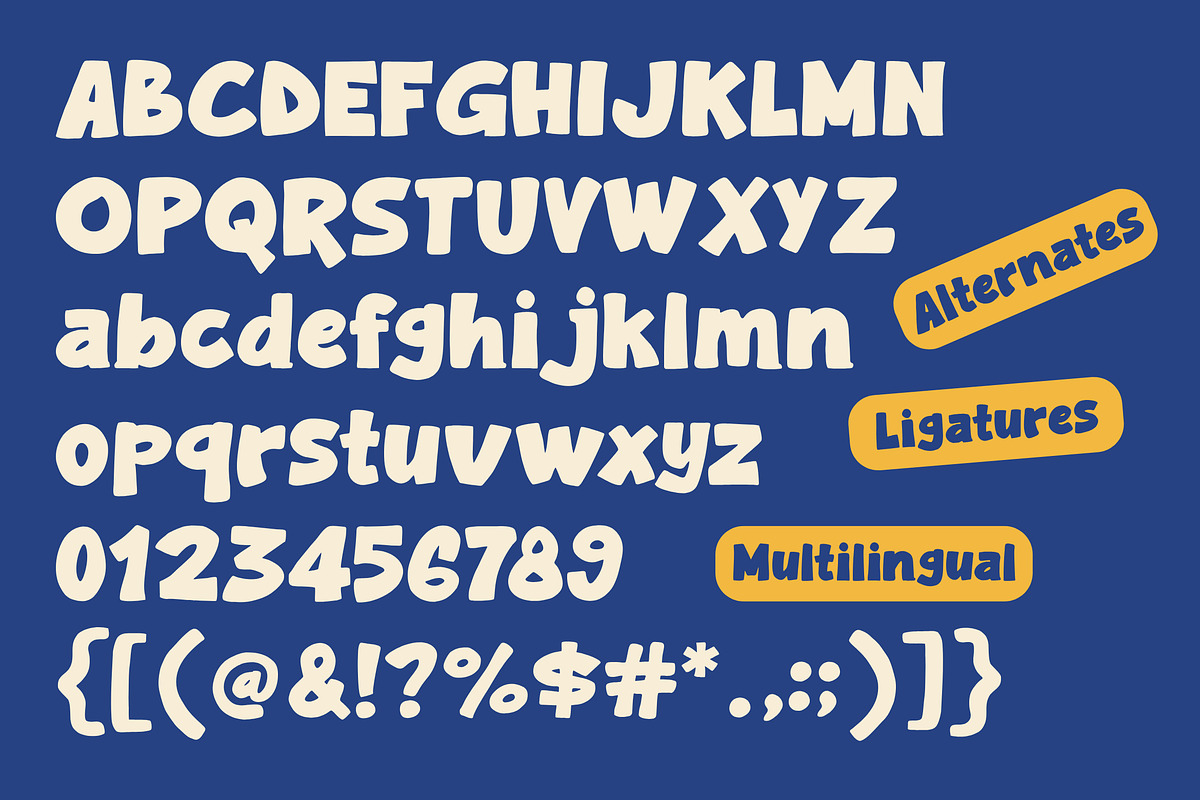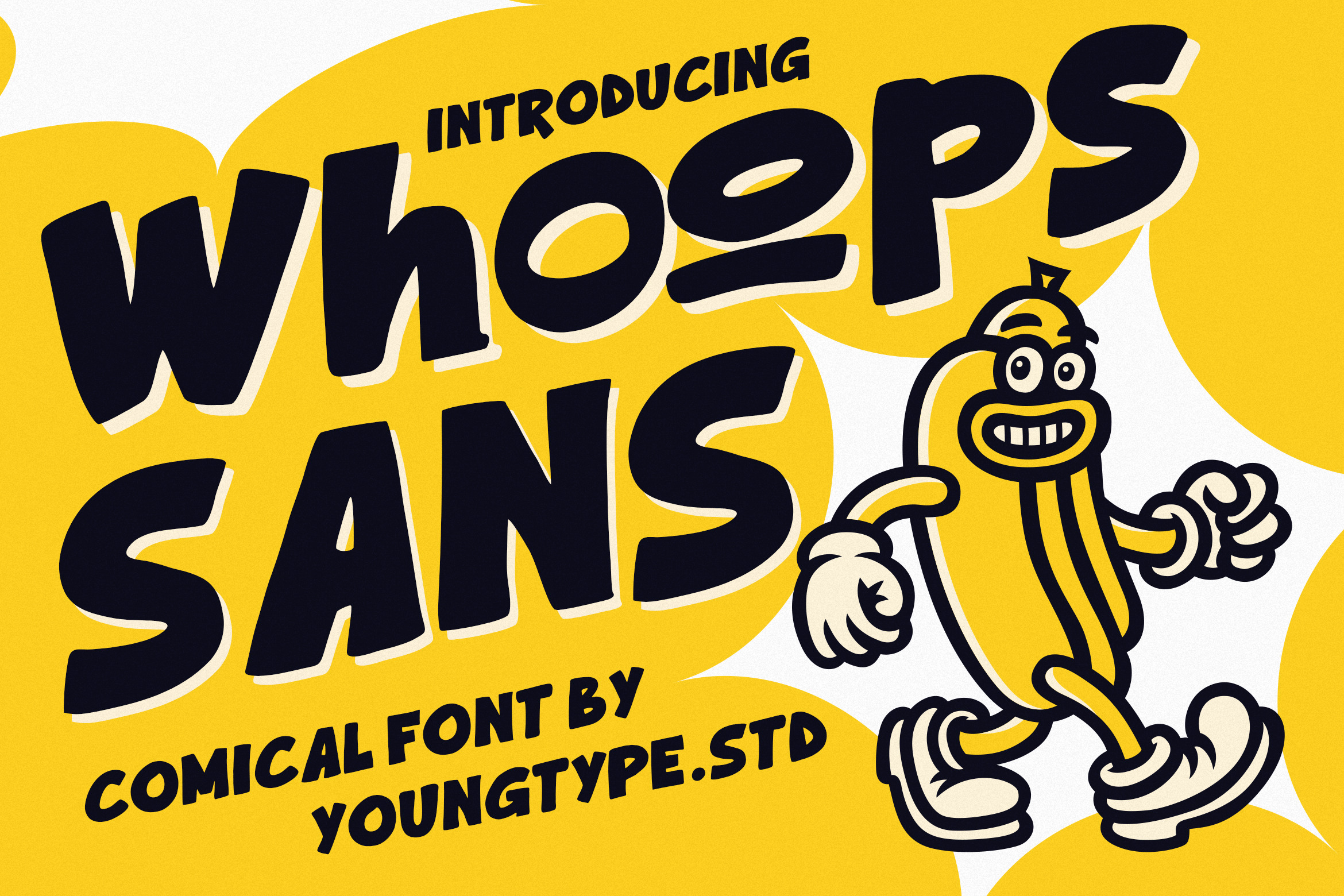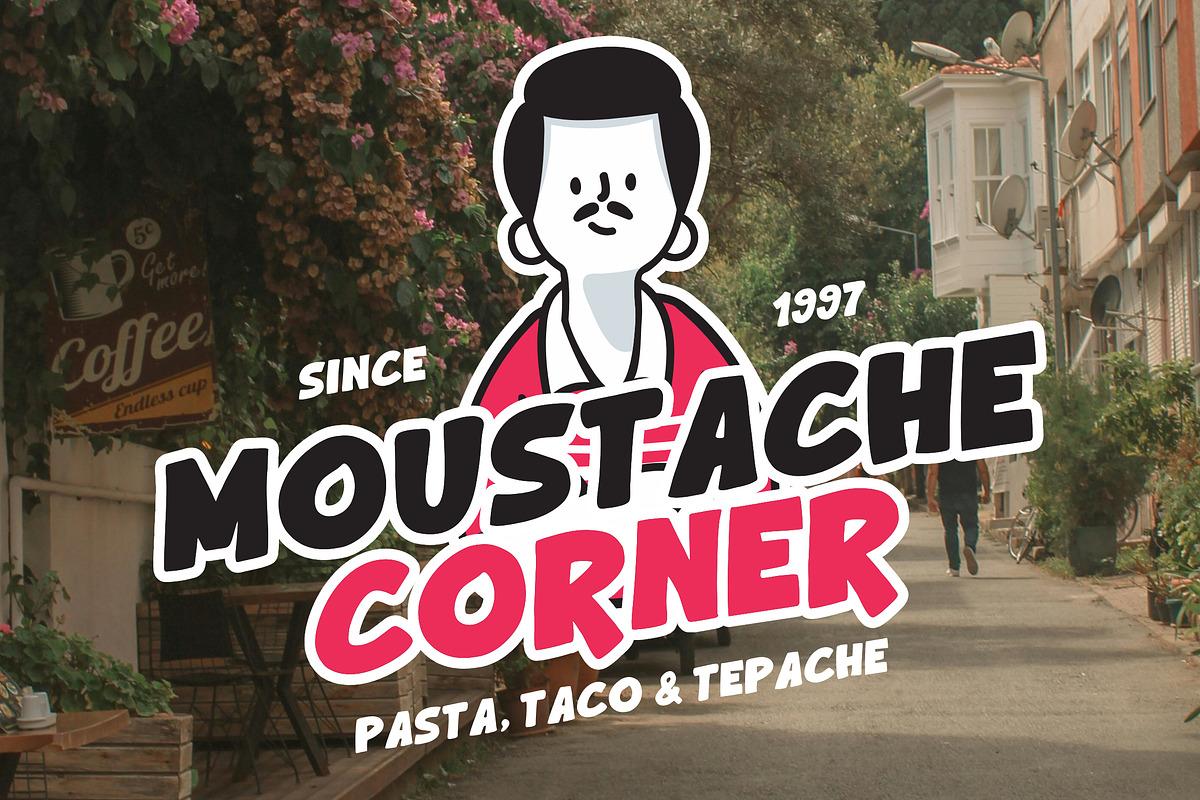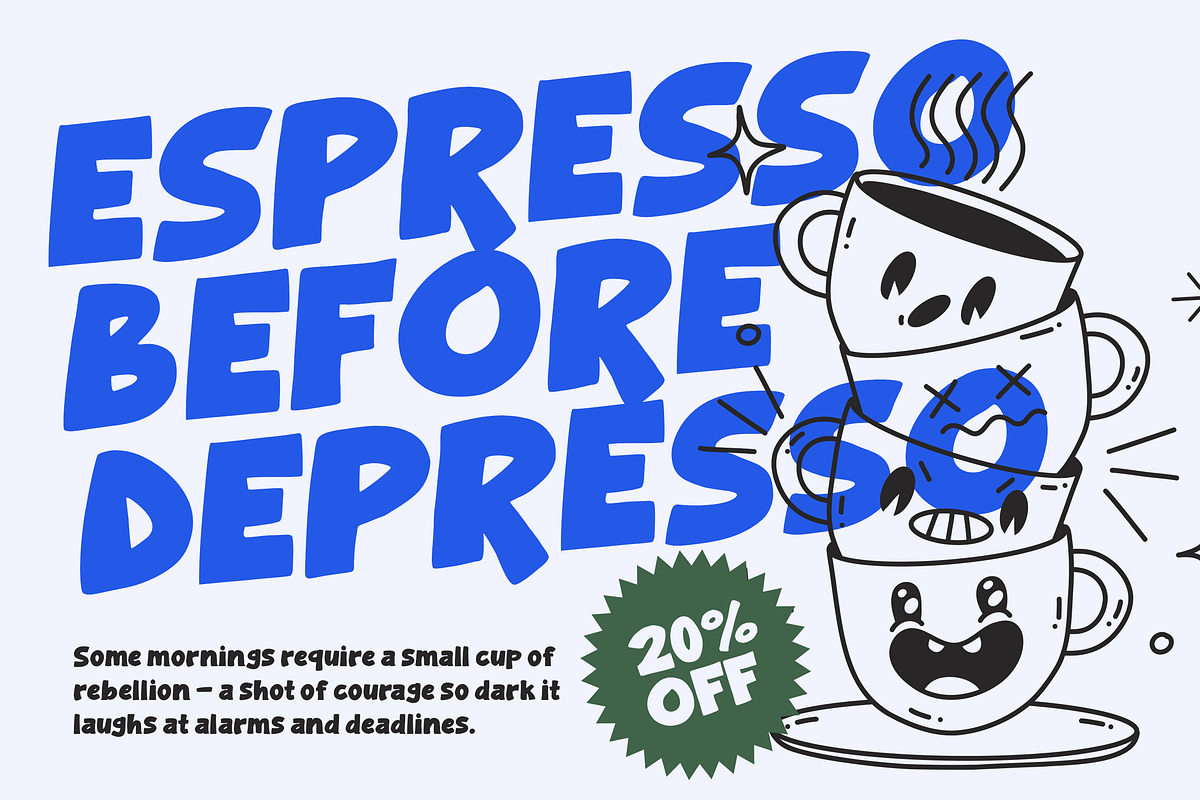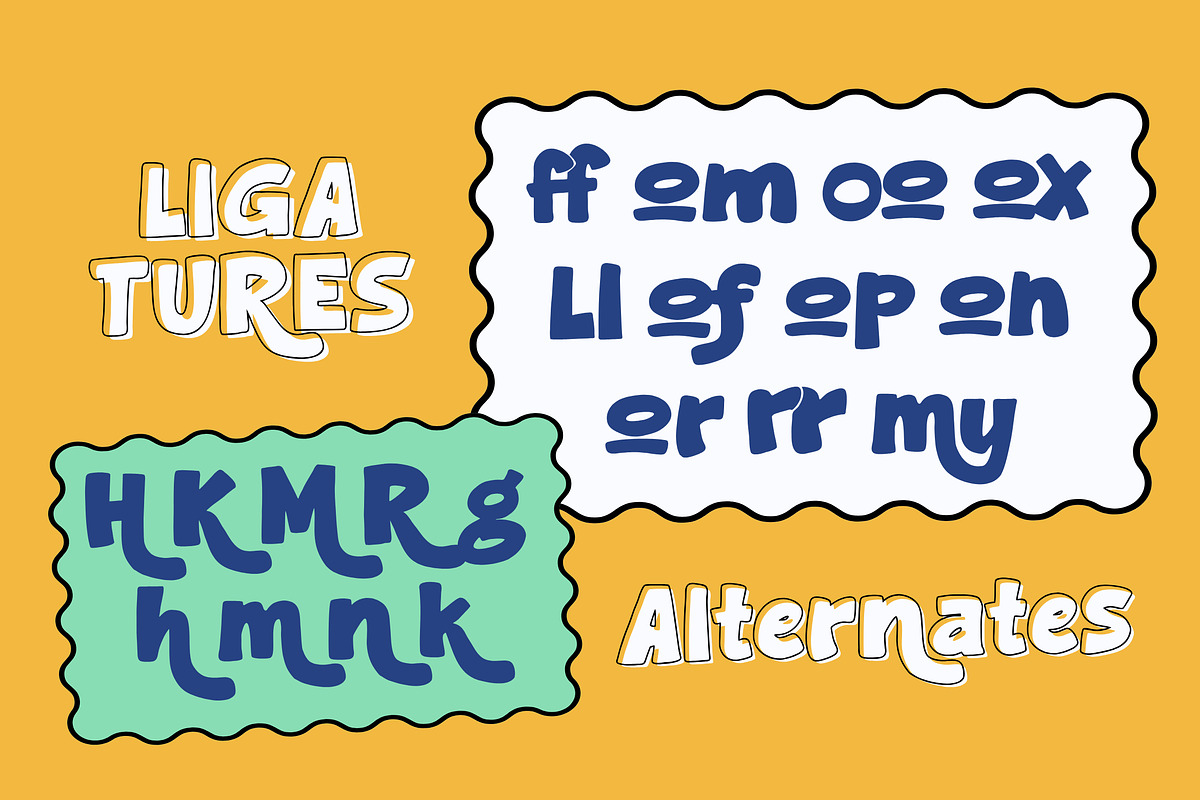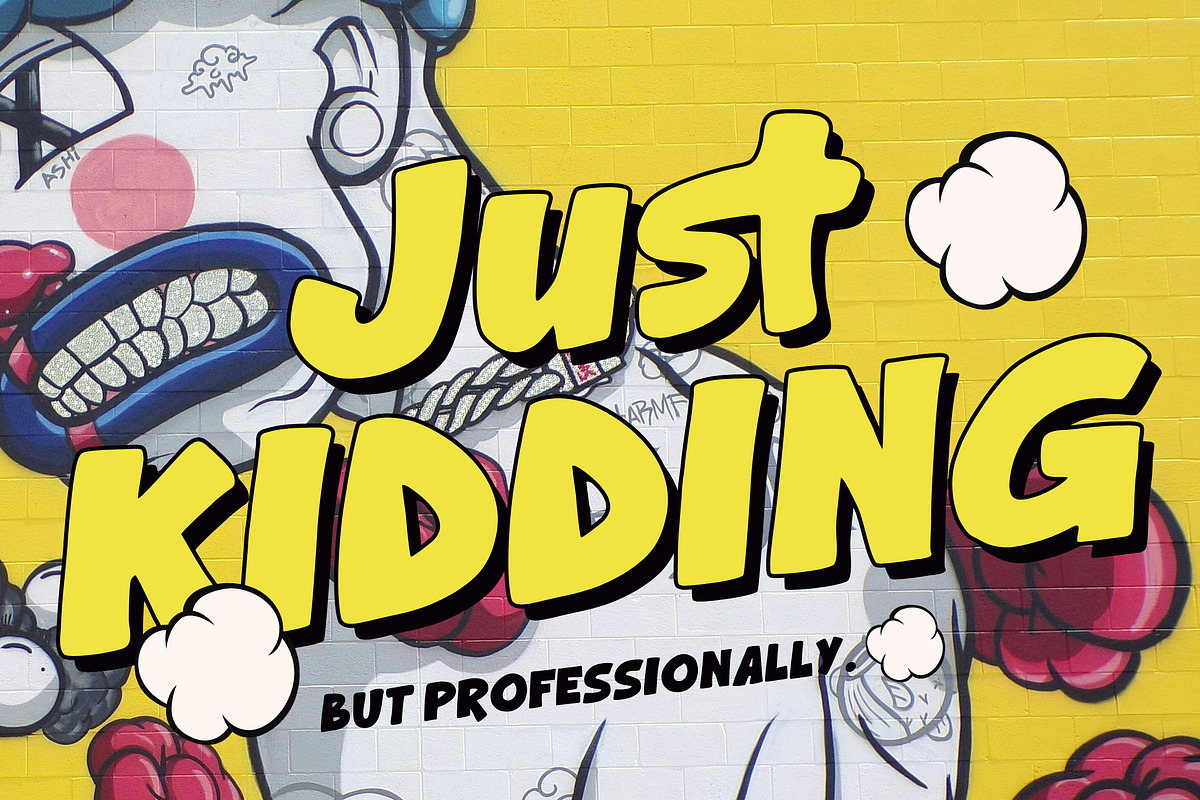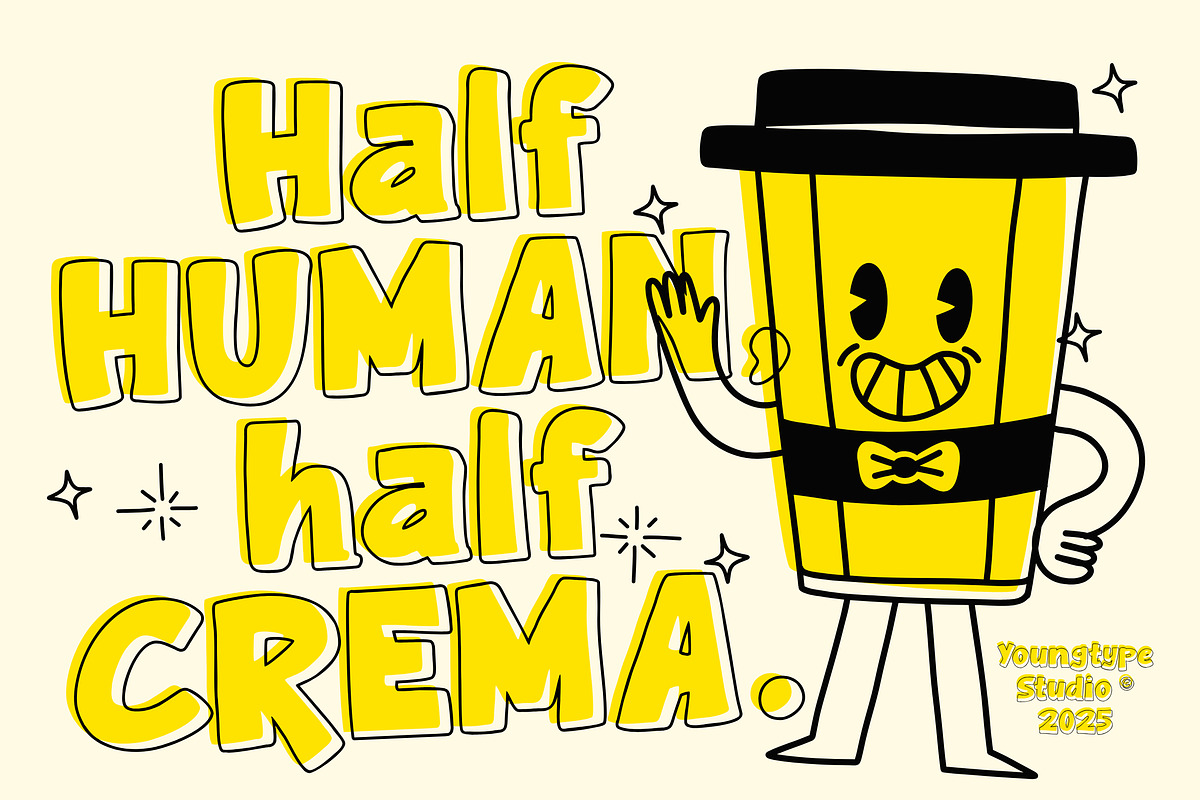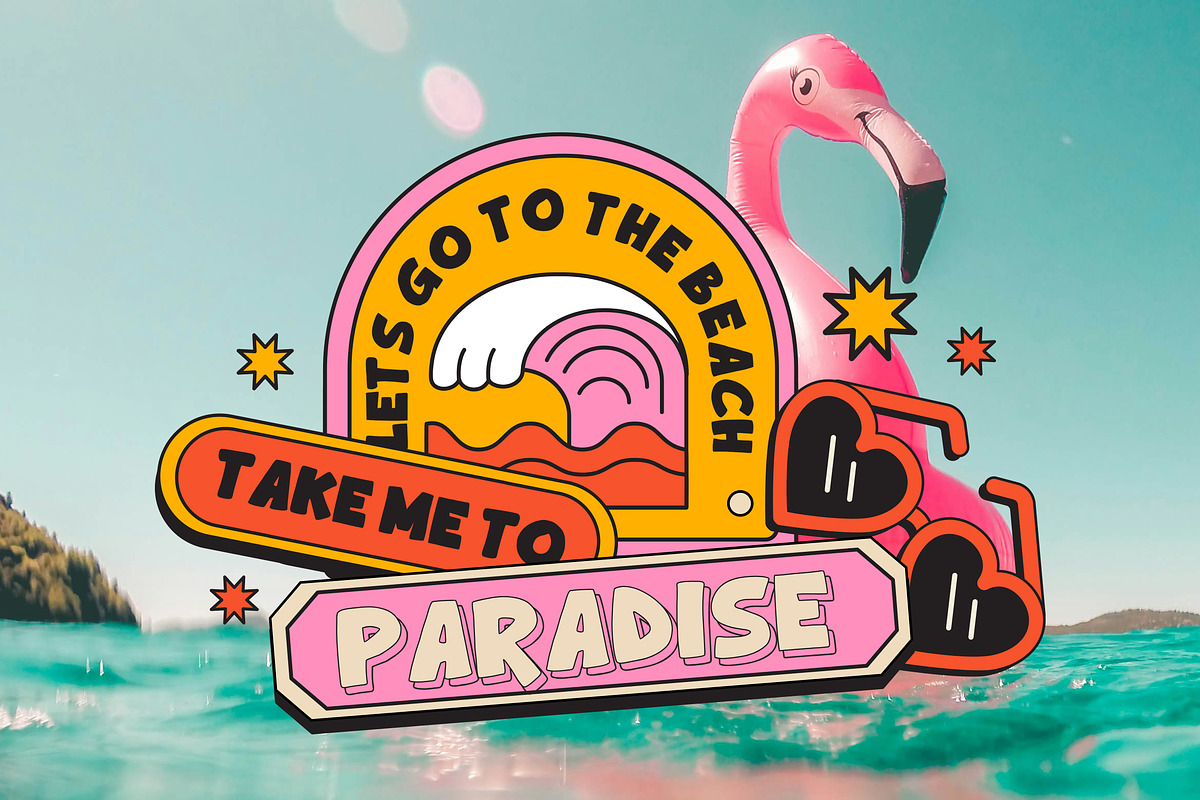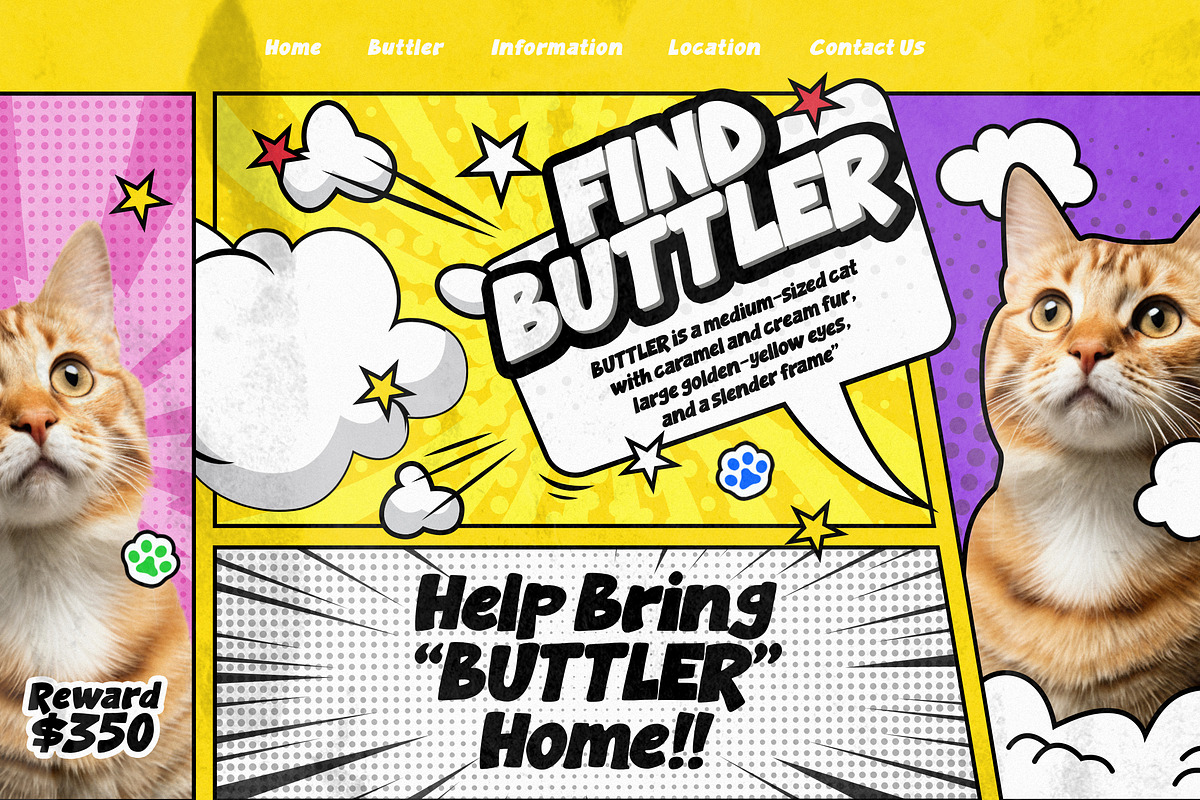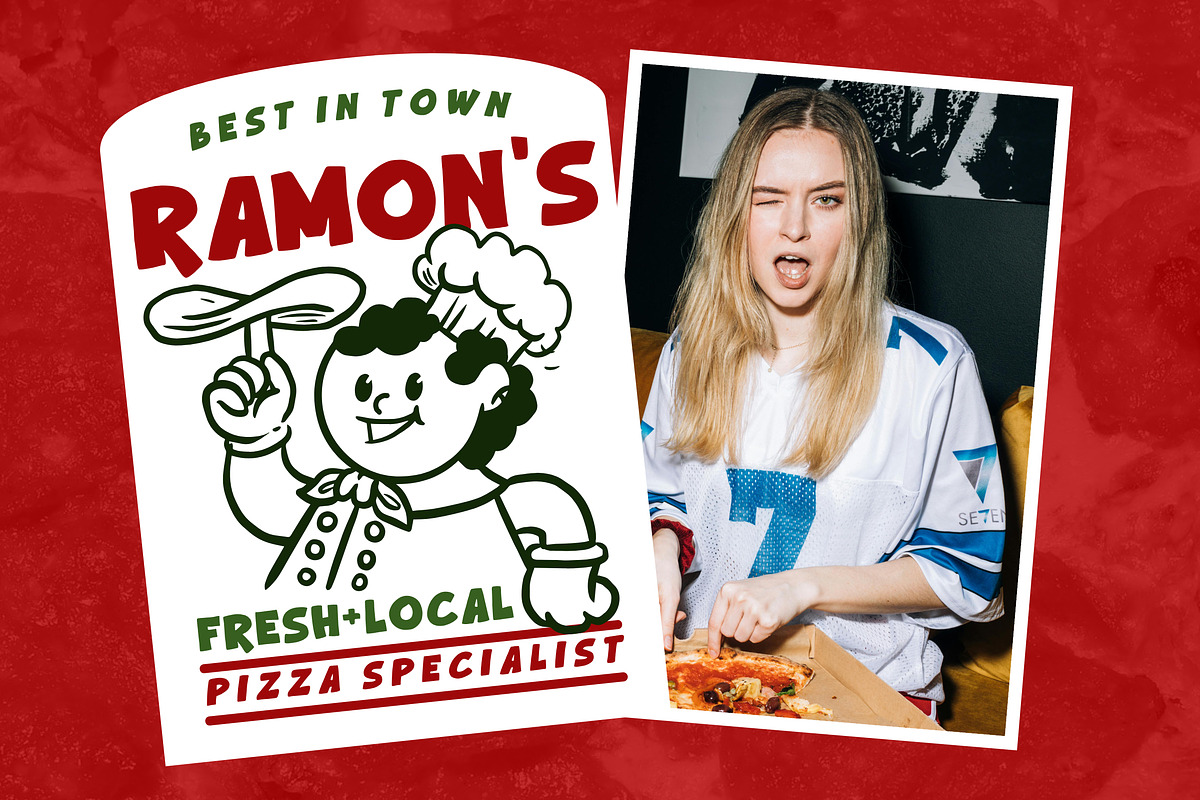
Whoops Sans - Handwritten Font
Whoops Sans is a bold and playful comic-style font designed by Youngtype Studio. It features thick, rounded letterforms with a fun, bouncy feel, perfect for designs that aim to be cheerful and eye-catching. The font’s cartoonish vibe and energetic curves make it ideal for posters, children’s books, packaging, branding, or any creative project that needs a humorous and friendly touch. Its strong contrast and quirky personality give a sense of movement and joy, making every word stand out with confidence and charm.